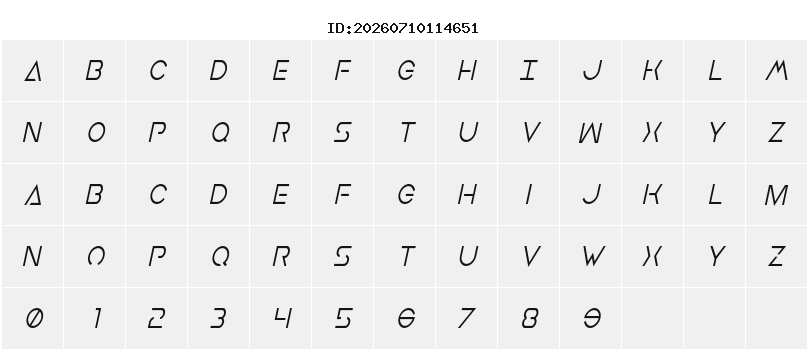
Earth Orbiter Condensed Italic Preview
• Font Name: Earth Orbiter Condensed Italic
• Font Style: Condensed Italic
• Full Font Name: Earth Orbiter Condensed Italic
About Earth Orbiter Condensed Italic.ttf
Earth Orbiter Condensed Italic.ttf is a modern, elegant sans-serif font designed for ultimate readability and visual harmony. Perfect for branding, headlines, web design, and print materials.